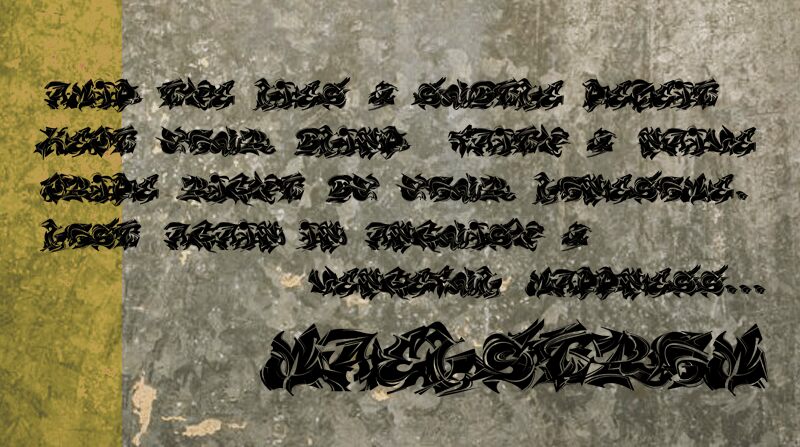
Maelstrom by Chung Deh Tien is a free graffiti font with a dense, explosive silhouette and sharply interlocked letters. Broad strokes break into hooked curves, blade-like points, and narrow slashes, creating the compressed motion of an elaborate wildstyle piece.
Streetwear labels and urban music audiences will find its aggressive forms suited to T-shirt graphics, album artwork, and event posters. The tangled construction also speaks to graffiti fans and action-sports crowds, especially when the lettering becomes part of a mural-inspired graphic rather than serving as neutral text.